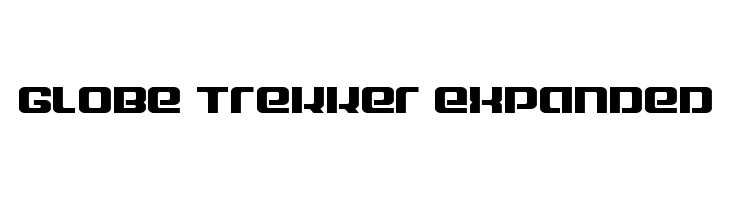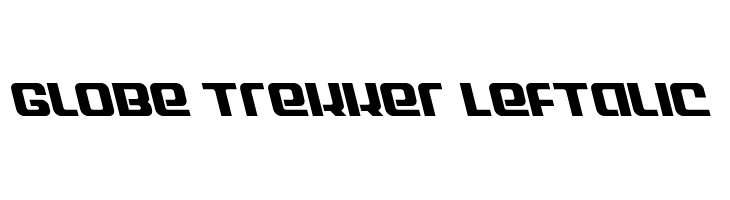
A bold, geometric font with an expanded, futuristic style.
A bold, expanded italic font with a modern and dynamic style.
A bold, futuristic font with a striped gradient effect.
A dynamic, futuristic italic font with a gradient effect and striped design.
A bold, geometric font with a halftone effect, ideal for modern and tech-themed designs.
A bold, italicized font with a halftone effect and a modern, dynamic style.
A bold, italicized font with a modern, dynamic style and tight character spacing.
A bold, futuristic font with geometric, stencil-like characters.
A bold, italic, futuristic font with wide, angular characters.
A bold, futuristic font with a leftward slant and uniform stroke thickness.